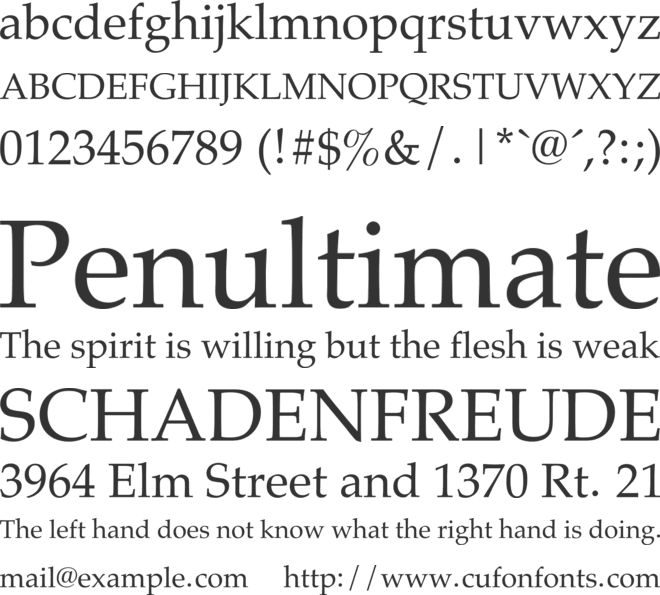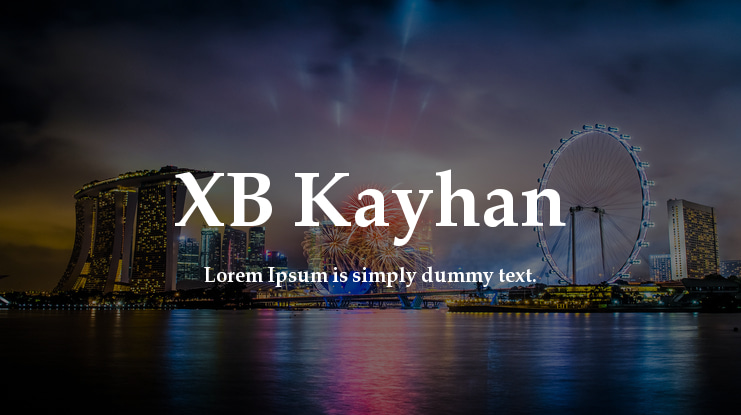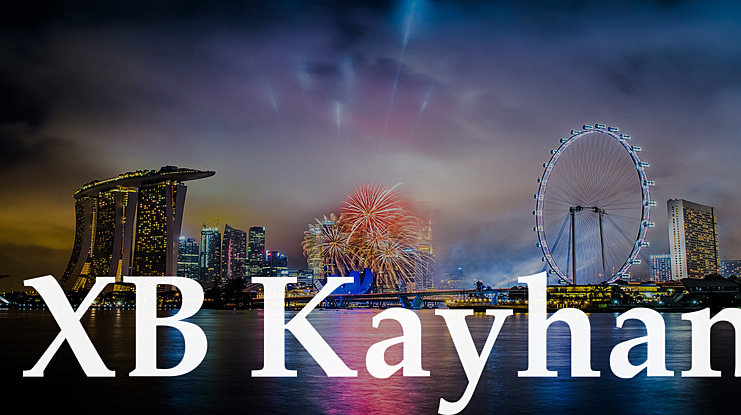
The same version as https://fontlibrary.org/en/font/xb-kayhan but no AAT tables and weirdly sized TSIV table. Rest is the original description of the font,
X Series 2 fonts are built on freely available fonts and extended to support Persian, Arabic, Urdu, Pashto, Dari, Uzbek, Kurdish, Uighur, old Turkish (Ottoman) and modern Turkish (Roman). These fonts are equipped with two font technologies, AAT and OpenType and can be used on any platform, Mac, Windows or Linux. (from http://wiki.irmug.com/index.php/X_Series_2)